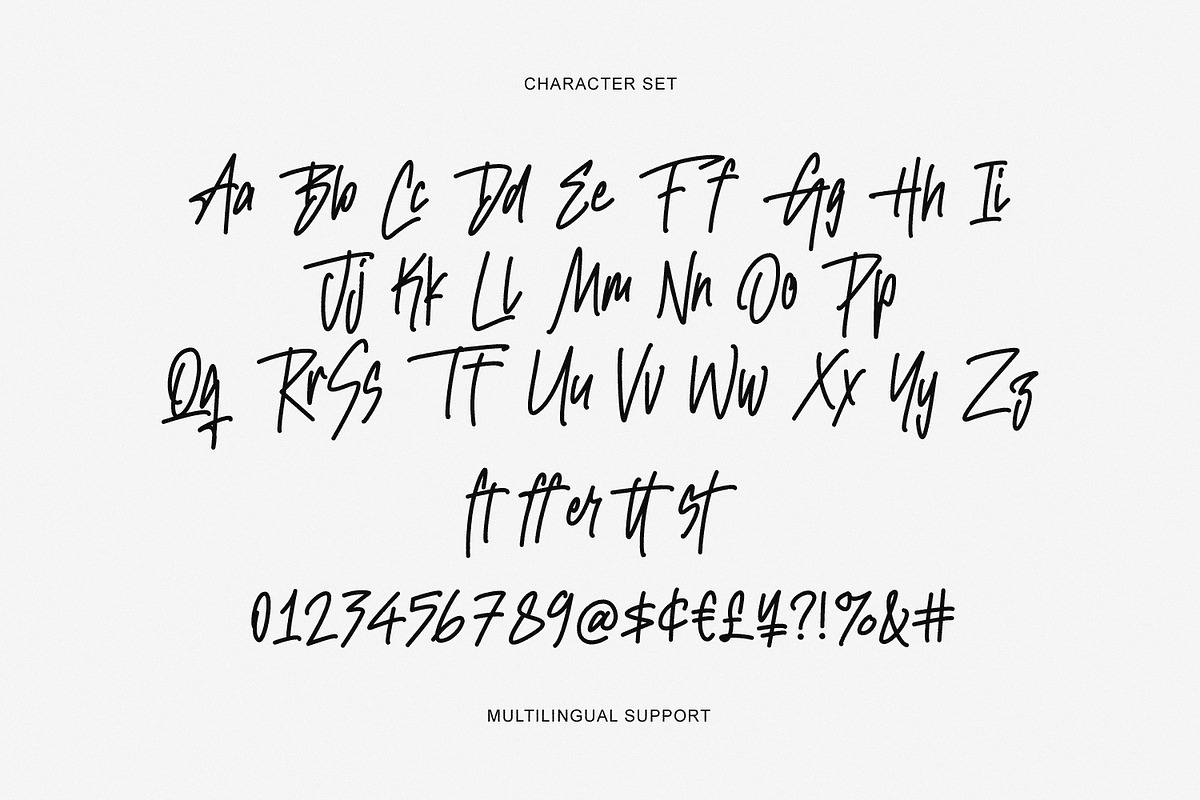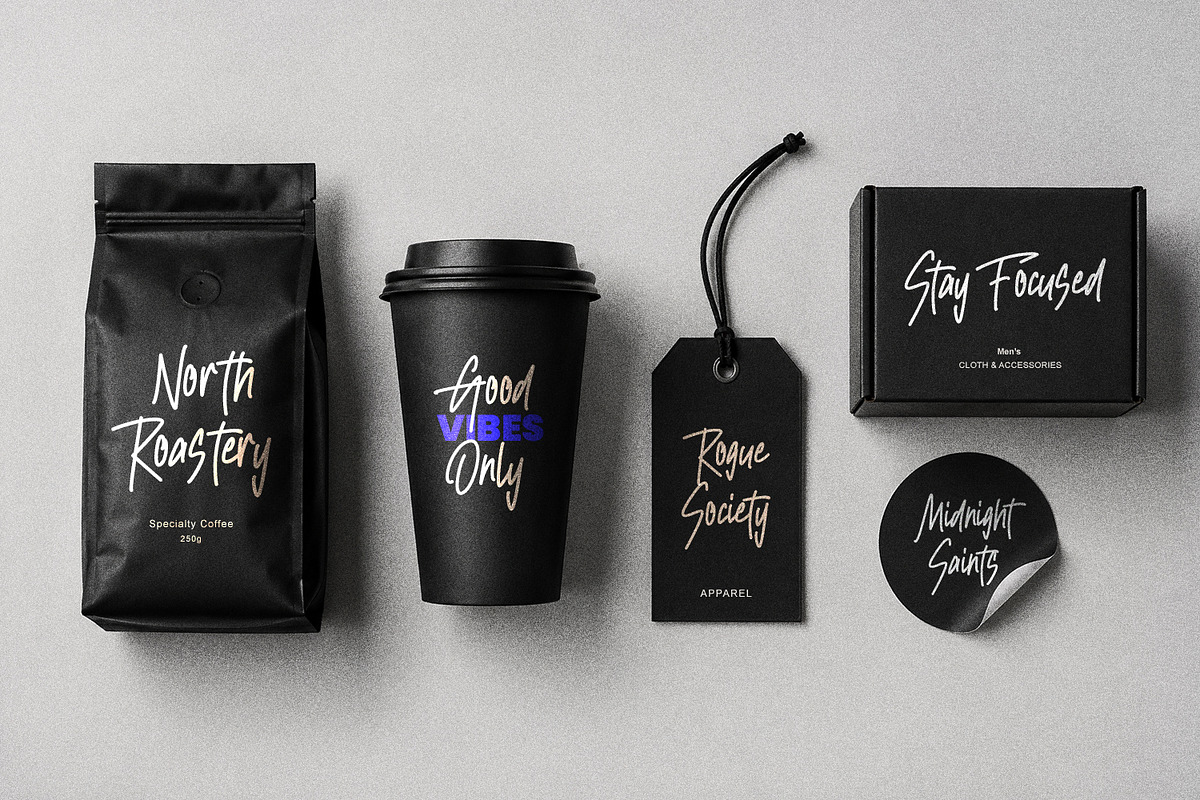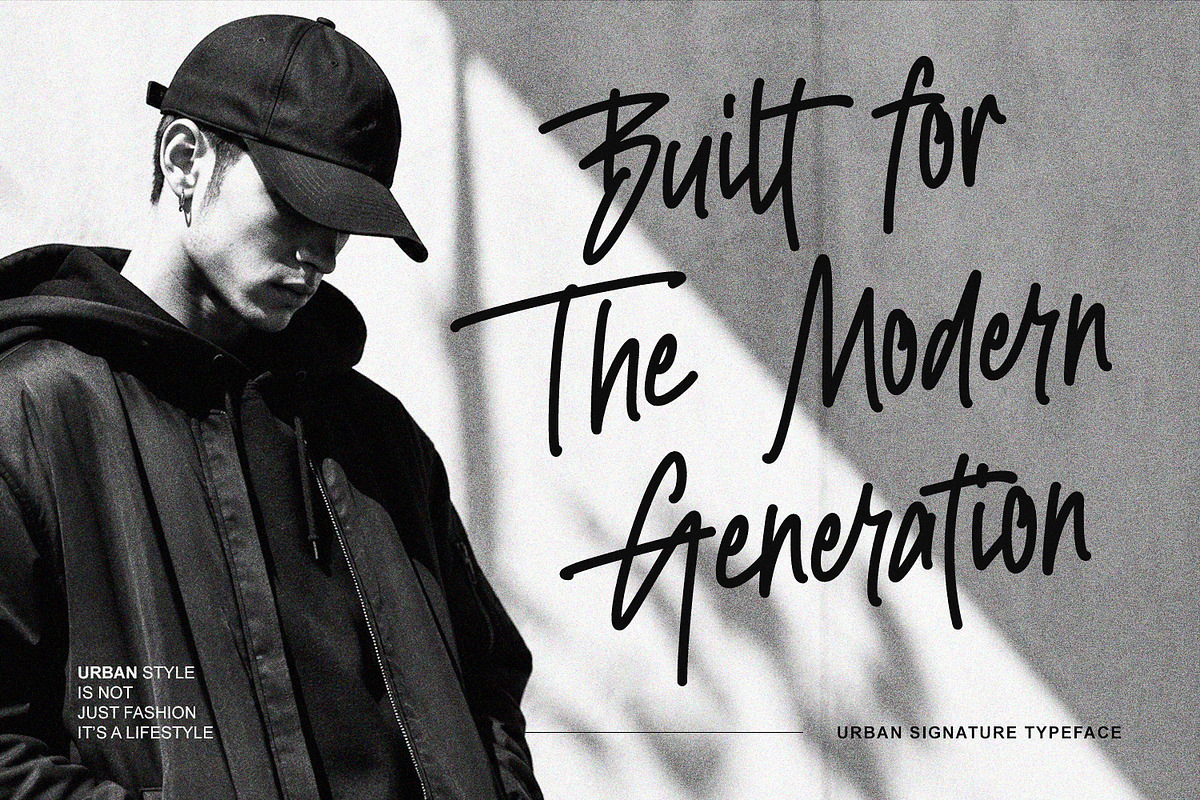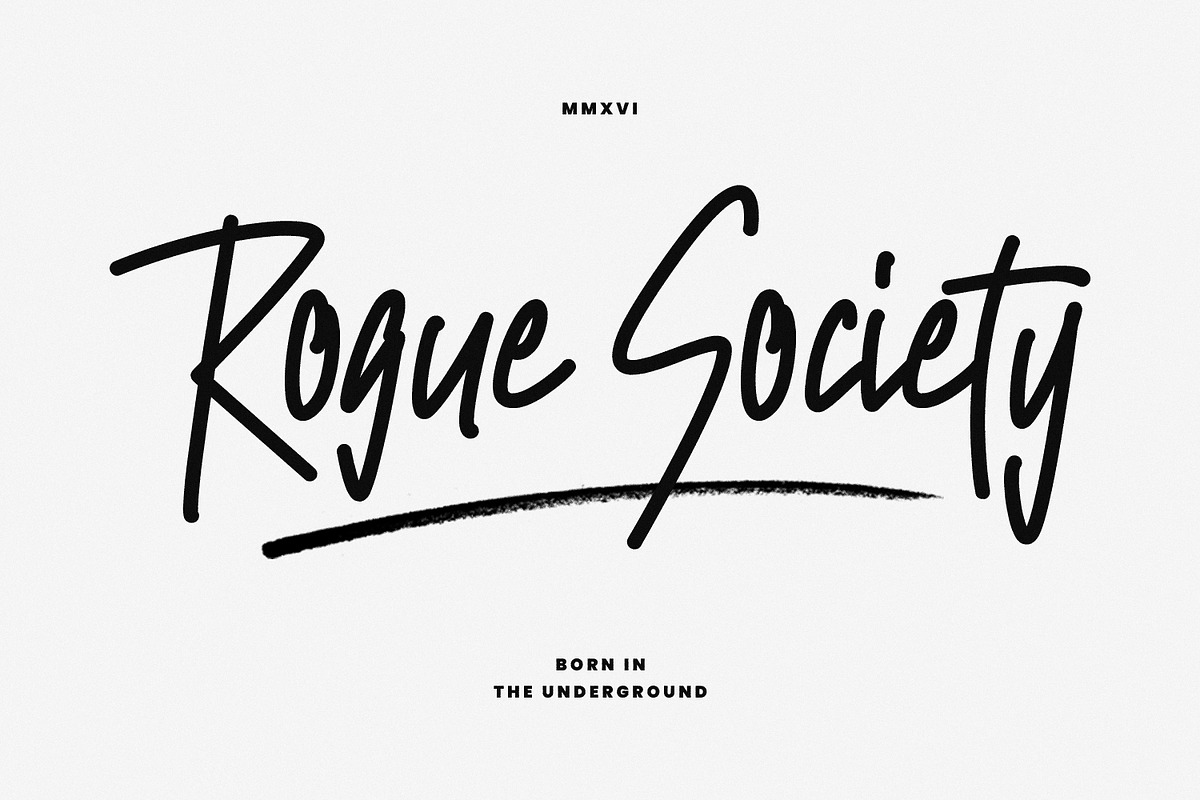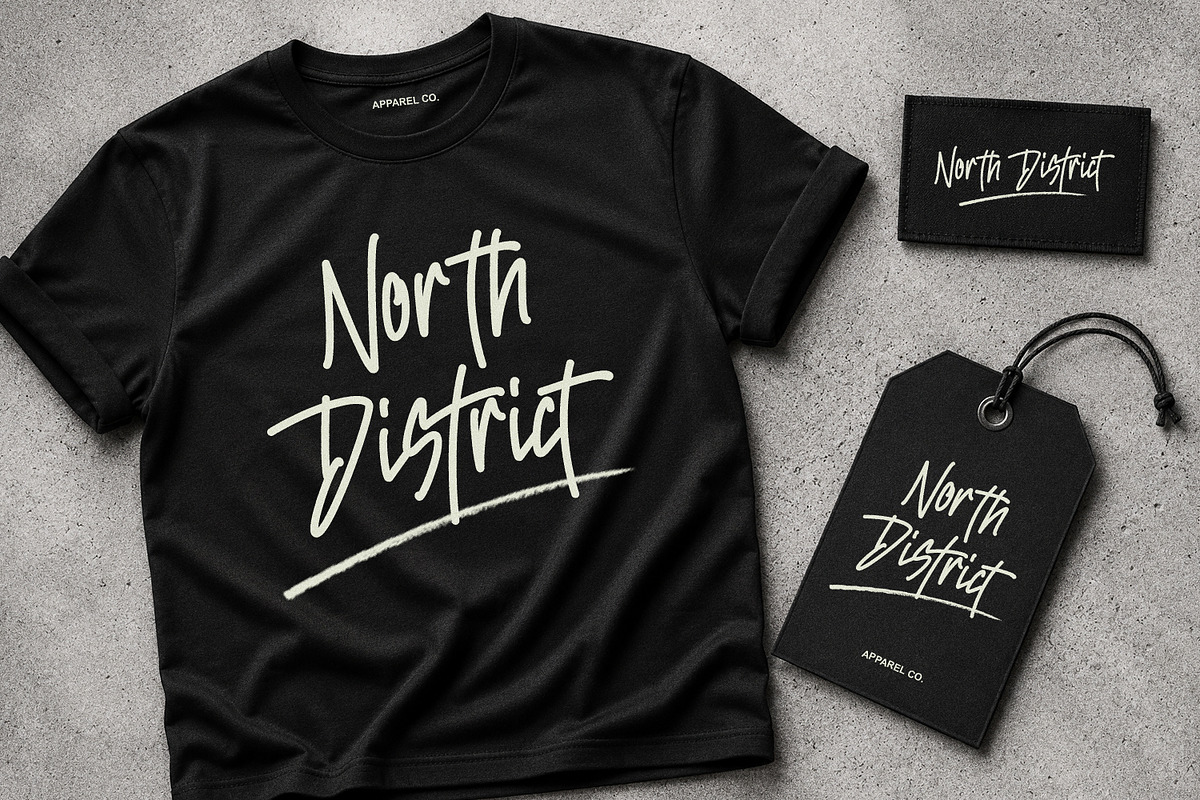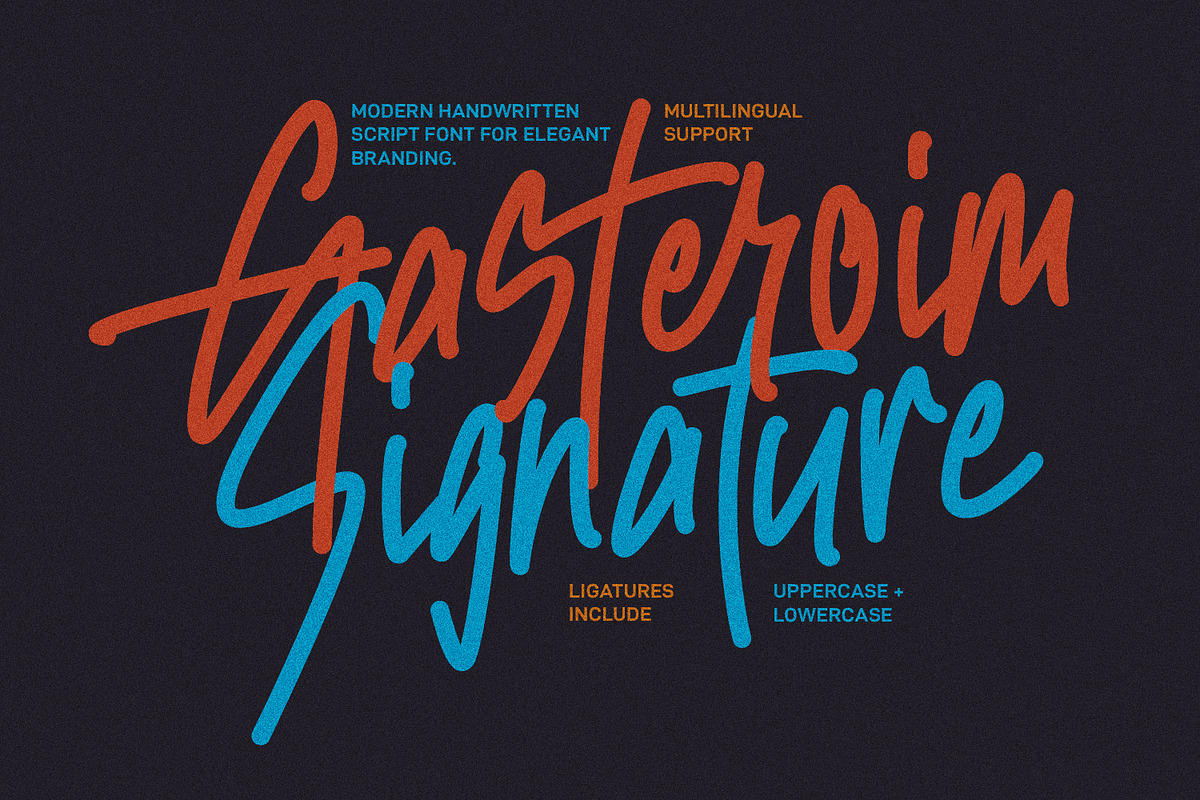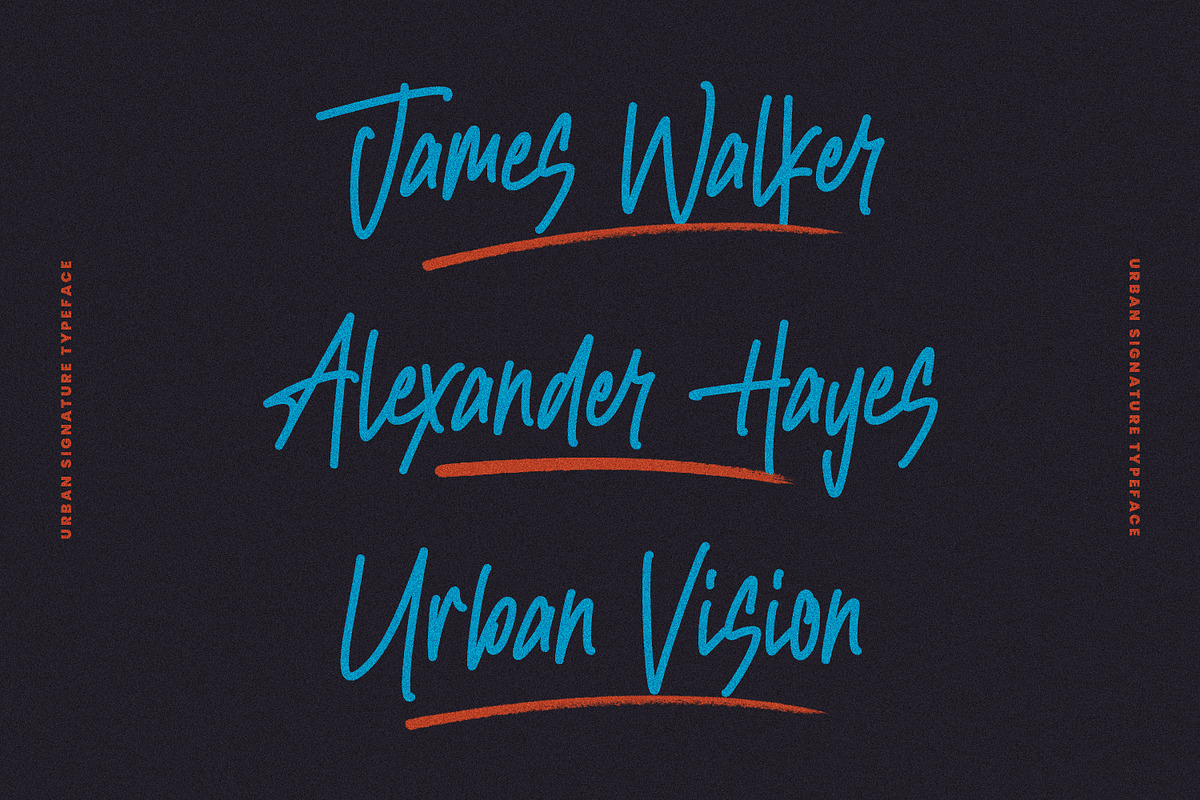
Gasteroim Signature Font Branding
Gasteroim Signature is an urban signature script typeface designed with energetic strokes and realistic hand-drawn characters. Featuring smooth curves and natural ligatures, this font captures a bold modern aesthetic ideal for high-impact visual projects. It includes uppercase letters, lowercase letters, numbers, punctuation marks, and multi-language support to ensure full design versatility.
Crafted to elevate contemporary branding, this typeface adds a raw, authentic touch to logos, product packaging, advertising graphics, and social media media assets. Its distinct cursive flow makes it perfect for creating striking titles, custom merch designs, coffee shop packaging, and sleek modern typography layouts.
- Numbers, Punctuation, and Symbols